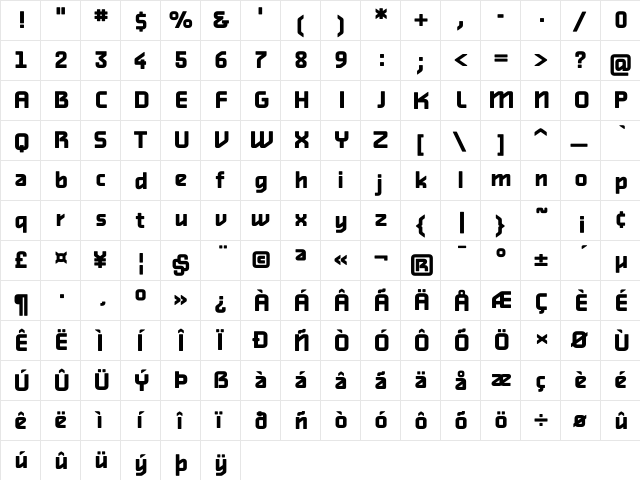
Alphaville Bold
Design Context for Alphaville Typeface
Alphaville offers clean, dependable letterforms without strong stylistic allegiance, making it a practical choice for designers who need flexibility. Its bold stroke weight gives it real presence on the page.
Pro Tip: Use Alphaville in both headline and body roles to test its range before committing to a single application.